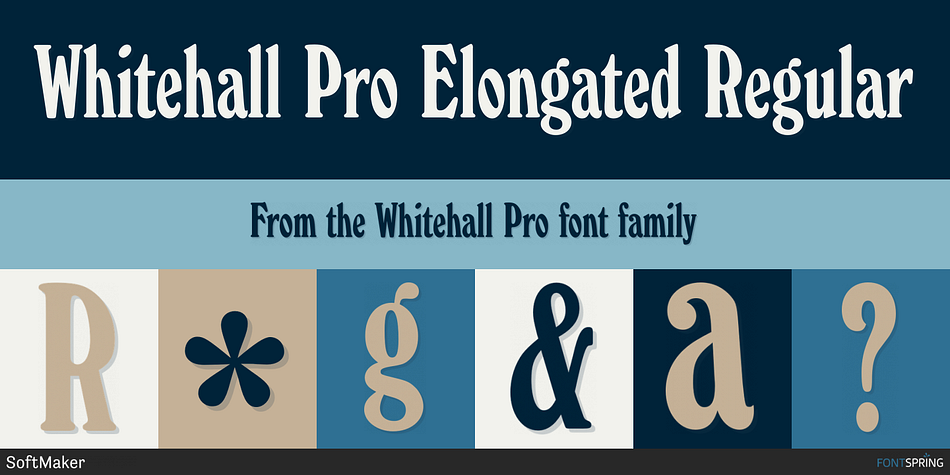
Whitehall Pro Elongated Regular
Whitehall Pro is a serif font family. This typeface has three styles and was published by SoftMaker.
Typefaces like Whitehall Pro were used extensively at the turn of the century in advertising on both sides of the Atlantic. The letterforms have an antiquated feel to them; their proportions seem slightly inspired by the art nouveau movements that were abounding during the time of their conception.
Whitehall Pro Extra Bold Condensed and Whitehall Pro Elongated are both superb examples of condensed serif display faces. Their ovular forms both appear somewhat egg like. Whitehall Pro Ultra Heavy bears similarities to Cooper Black , a more modern, American-style typeface that was created 20 years later.